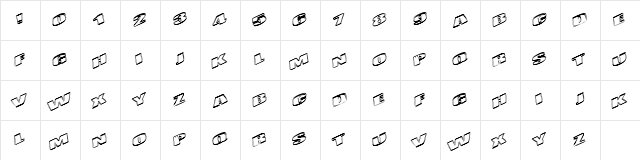
KometenMelodie1 Regular Font Preview
KometenMelodie1 Regular
Design Context for KometenMelodie1 Typeface
KometenMelodie1 is a composed and adaptable typeface that performs quietly and consistently across a wide range of design contexts.